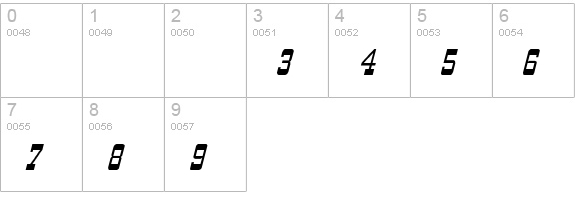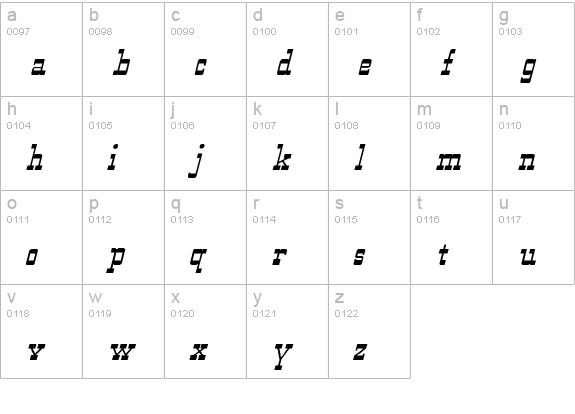
WildWest-Normal Italic Font Details
WildWest-Normal Italic is the standard, neutral, italic variant in the WildWest typeface family \xE2\x80\x94 well suited to general body text, paragraphs, and standard typographic work.
Introducing WildWest-Normal Italic, a font that epitomizes the untamed spirit of the Wild West era with its bold yet graceful strokes. This versatile typeface effortlessly captures the essence of the rugged landscapes, daring adventures, and untamed wilderness that defined this iconic period in American history. With its slanted italics and intricate detailing, WildWest-Normal Italic commands attention and adds a touch of authenticity to any design project. Whether you're working on a poster for a vintage-inspired event, creating an eye-catching logo for a rustic-themed brand, or designing a captivating book cover that transports readers to the wild frontier, this font will deliver a truly immersive experience. But what makes WildWest-Normal Italic even more exceptional is that it is freely available to download at FontsMarket.com. Yes, you read that right! This remarkable typeface brings the untamed spirit of the Wild West within the reach of every designer, without any cost. So, unleash your creativity and embark on a typographic journey like no other, as you seamlessly blend the charm of the Old West with modern design sensibilities. Crafted with meticulous attention to detail, WildWest-Normal Italic offers a wide range of characters, including uppercase letters, lowercase letters, numerals, punctuation marks, and special symbols. Its versatility is further enhanced by its compatibility with various design software and platforms, making it a valuable asset for both experienced designers and novices alike. Experience the power and beauty of WildWest-Normal Italic as it transports you back in time, evoking the spirit of the Wild West with every stroke. Whether you're working on a personal project or a professional endeavor, this font will undoubtedly elevate your designs and make them stand out from the crowd. So, don your cowboy hat, saddle up, and take advantage of this incredible opportunity to download WildWest-Normal Italic for free at FontsMarket.com. Unleash your creativity and let this font transport you to a time when the West was truly wild.